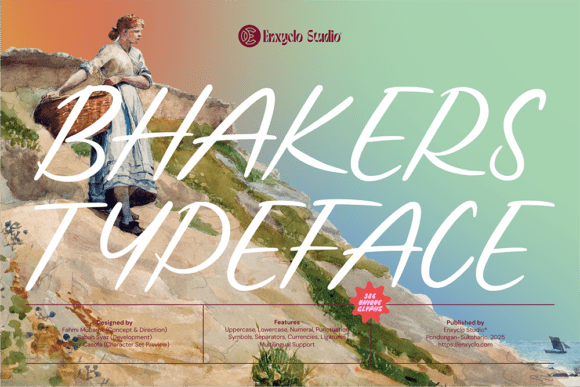
Unleash Your Creativity with Bhakers Font
Have you ever been in the middle of a design project, and suddenly, you’re stuck on finding the perfect font? I recall a recent experience where I was working on a branding project for a trendy cafe, and I needed a font that would capture the essence of their vibrant and playful atmosphere. That’s when I stumbled upon Bhakers Font, a spirited and dynamic brush font that instantly caught my attention.
The Birth of Bhakers
Bhakers is more than just a font – it’s a harmonious blend of yesteryear’s hand-drawn signage and present-day brush calligraphy. This innovative mix of old-world charm and cutting-edge design propels the ever-changing world of aesthetics to new heights. The alphabet is a symphony of fluid strokes and captivating curves, primed for making your titles sizzle and your branding “pop” with vibrancy.
What Makes Bhakers Special?
With Bhakers, life is breathed into a sweeping range of 386 unique glyphs in both uppercase and lowercase. Numerals, punctuation, symbols, multilingual characters, and currency support are all deftly included. This font is remarkable for its execution of smooth, dynamic brush strokes that inevitably garner attention. Here are some of the features that I love about Bhakers:
- ✨ Unique Glyphs: 386 unique glyphs in both uppercase and lowercase
- ✅ Multilingual Support: Supports multilingual characters and currency
- 🔥 Dynamic Brush Strokes: Smooth, dynamic brush strokes that add a touch of elegance to your designs
- 📈 OpenType Features: Compatible with OpenType features, allowing for advanced typography
Bhakers has quickly become one of my go-to fonts for creative projects. Here are some of the things that I love about it:
- ✨ Versatility: Perfect for branding, logo design, social media graphics, posters, and flyers
- 🔥 Attention-Grabbing: Dynamic brush strokes that add a touch of elegance to your designs
While Bhakers is an excellent font, there are a few minor quirks to be aware of:
- ⚠️ Glyph Limitations: Some users may find that certain glyphs or special characters are missing
- 🤔 Learning Curve: May require some time to get familiar with the font’s features and capabilities
The story behind Bhakers is one of passion and creativity. The designer, inspired by the art of hand-drawn signage and brush calligraphy, set out to create a font that would capture the essence of both worlds. Through countless hours of research and design, Bhakers was born – a font that embodies the perfect blend of old-world charm and modern elegance.
Q: What is Bhakers Font?
Bhakers Font is a dynamic brush font designed to infuse audacious character into your artistic inspirations.